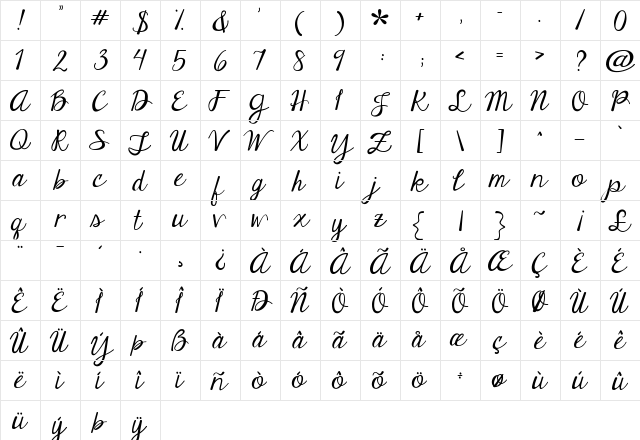
Janda Elegant Handwriting Regular
| Foundry | Kimberly Geswein |
| Designer | Kimberly Geswein |
Design Context for Janda Elegant Handwriting Typeface
Janda Elegant Handwriting brings a calligraphic fluidity to the page — its connecting strokes and expressive curves give it an unmistakably human quality.
Font Pairing: Combine Janda Elegant Handwriting with a simple geometric sans for maximum contrast — the tension between flowing curves and clean structure is a classic typographic pairing.
Pro Tip: Use Janda Elegant Handwriting for short runs of text — names, titles, or taglines. Extended body copy in script faces tires the eye quickly.